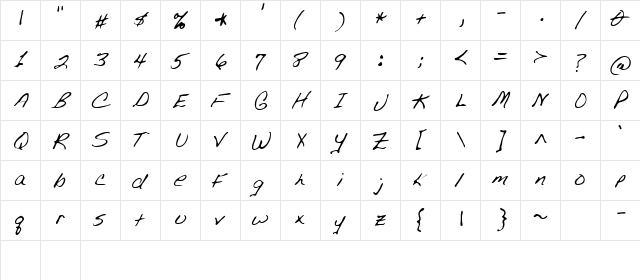
Slater Regular
Design Context for Slater Typeface
Slater is a composed and adaptable typeface that performs quietly and consistently across a wide range of design contexts.